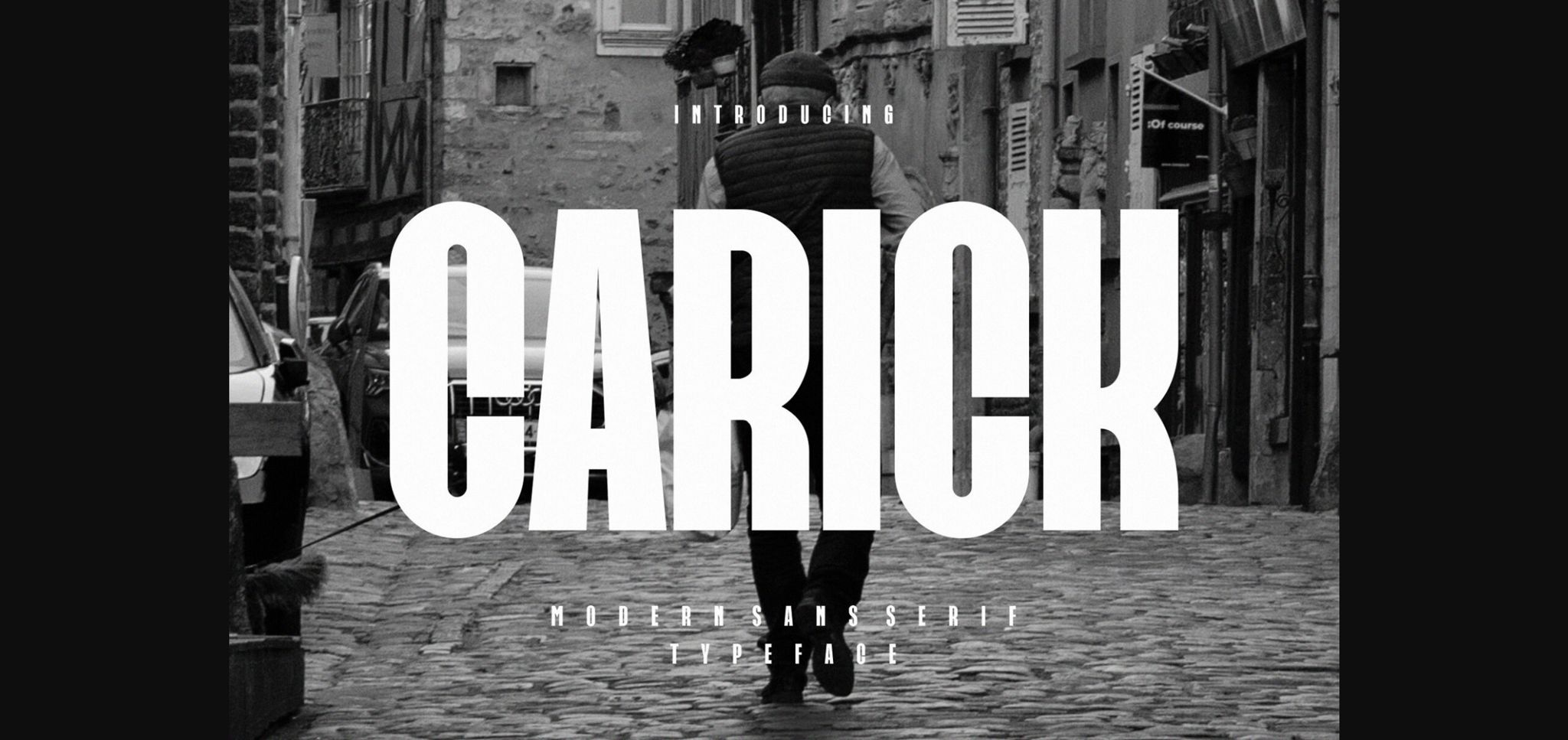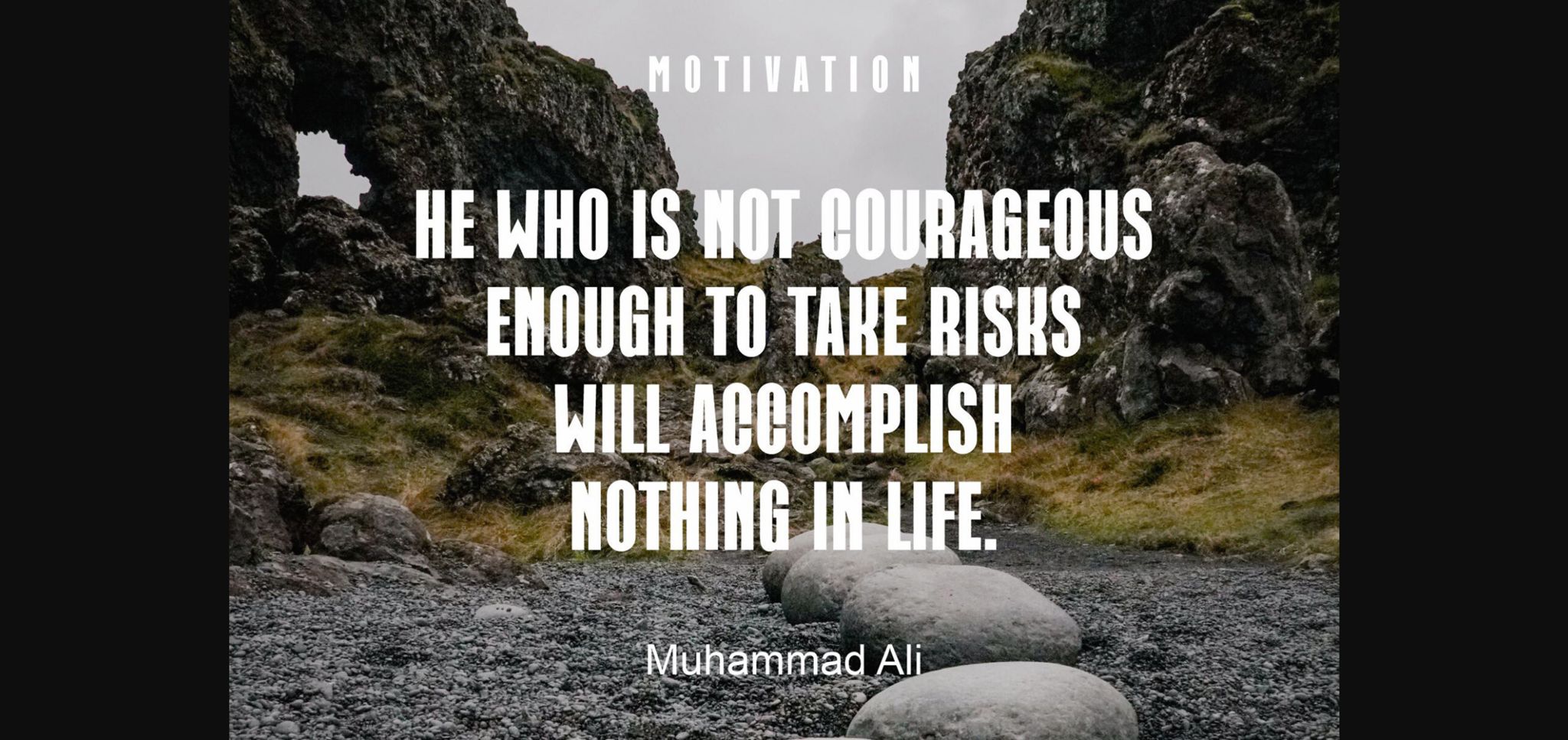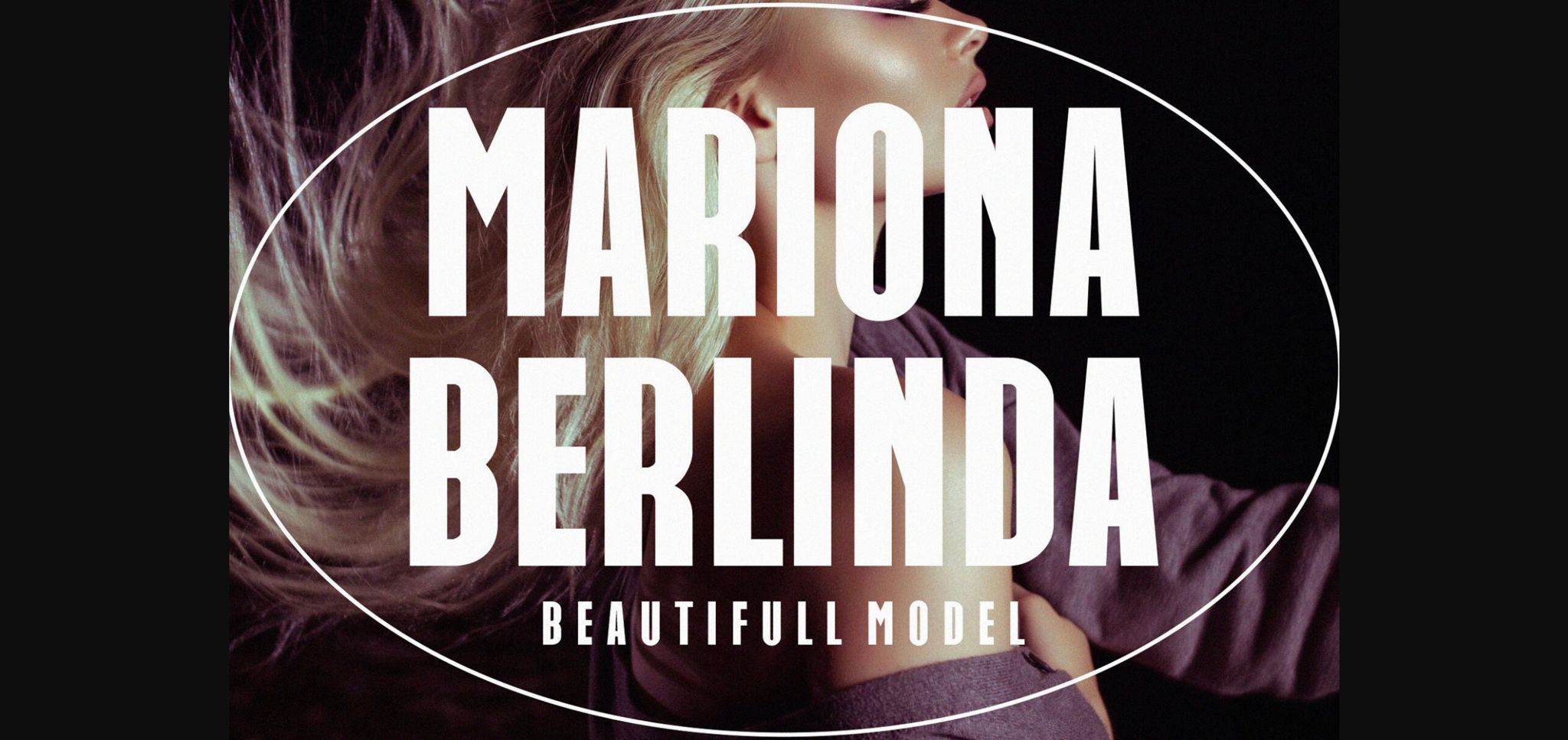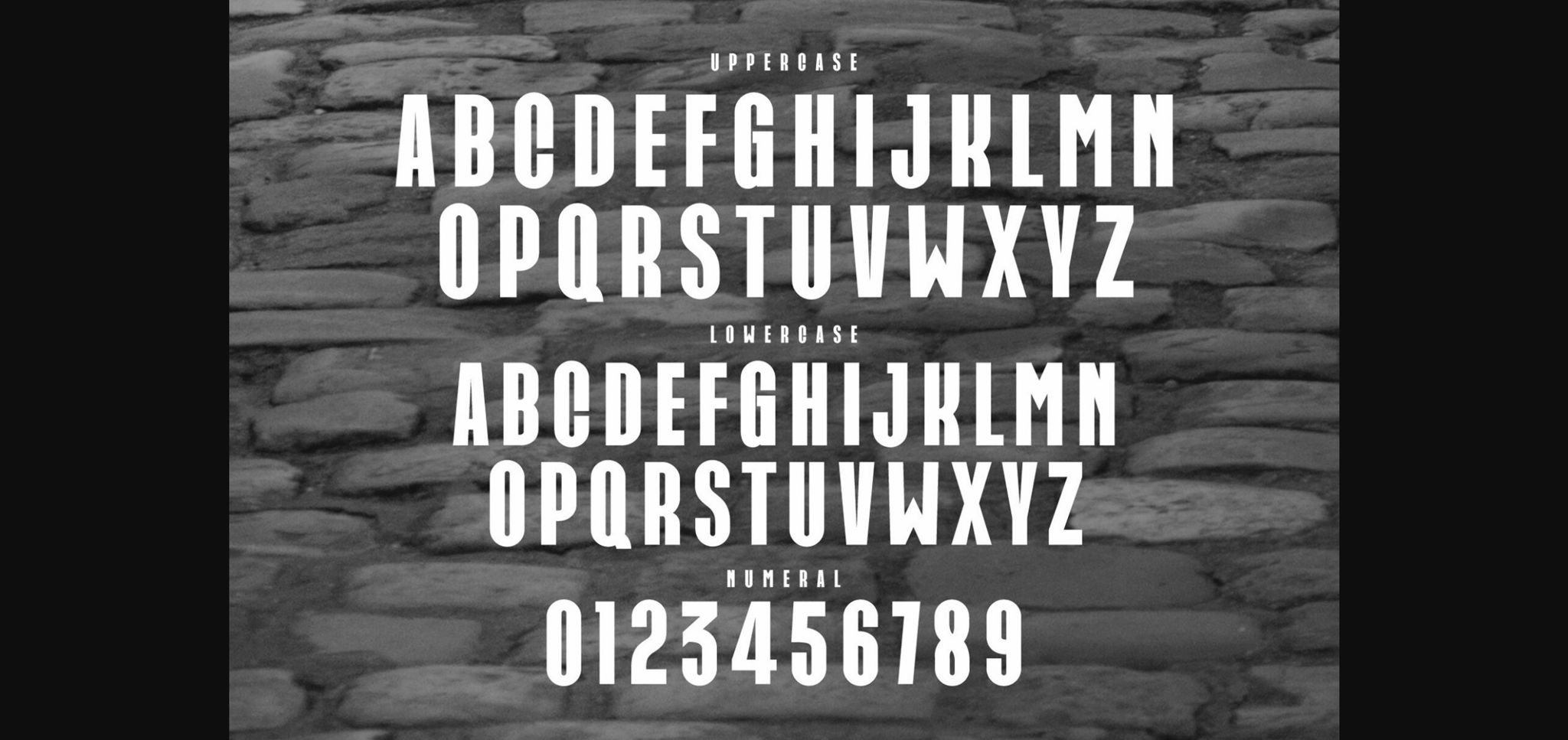
About Carick Font
**CARICK** Modern Sans Serif Typeface inspired by the famous minimalist logo perfect for the purposes of designing templates, brochures, videos, advertising branding, logos, invitations, layout design, elegant crafting, beauty design, and other